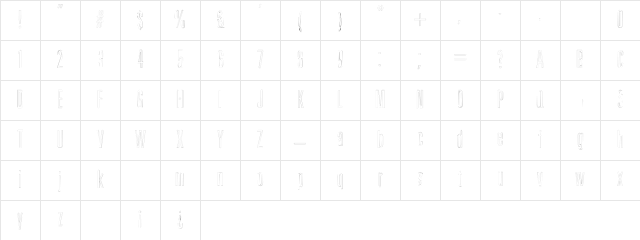
Complete Fury Open glyph index. Displaying only characters natively supported by Fury Open font.
Fury is a composed and adaptable typeface that performs quietly and consistently across a wide range of design contexts.